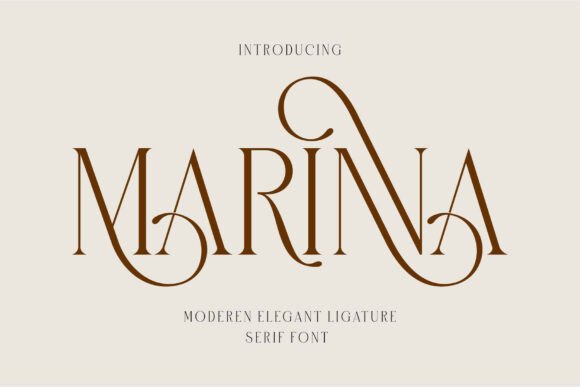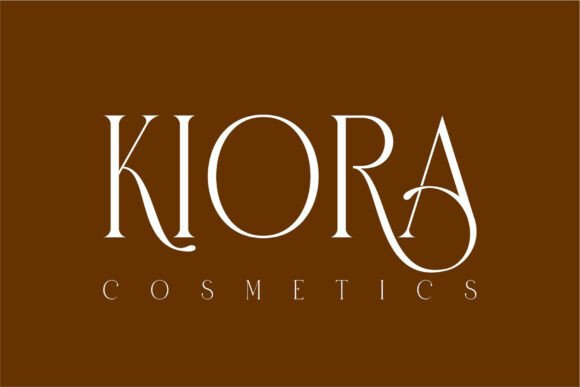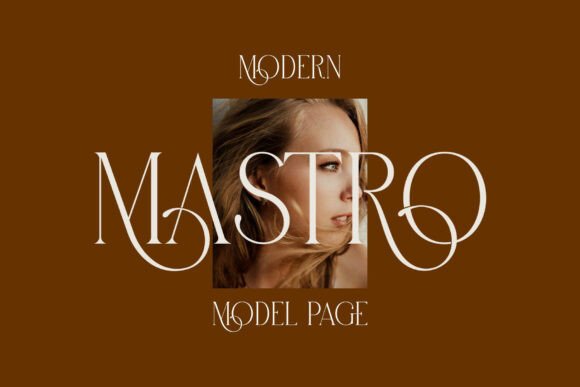
Marinna Font
MARINNA is a stylish serif font that blends classic elegance with contemporary refinement.
Featuring graceful serifs, balanced proportions, and finely crafted letterforms, it captures the timeless beauty of traditional typography with a modern twist. Ideal for logos, editorials, invitations, and branding, it adds a sophisticated and polished touch to any design. With its versatile style and refined details, this font delivers both distinction and charm.
MARINNA font is also PUA-encoded, ensuring effortless access to all glyphs, swashes, and alternate characters to help you customize your creations with ease.